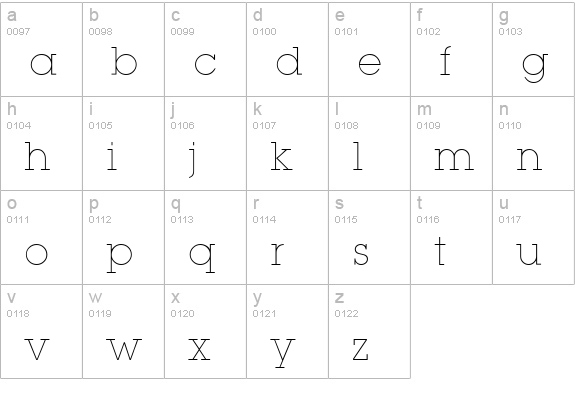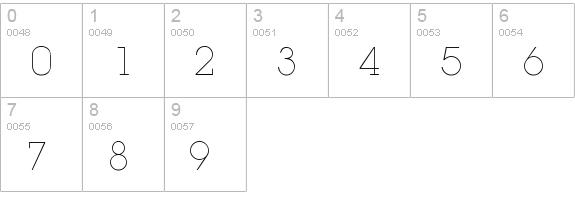
L850-Slab-Light-Regular is a refined, elegant variant in the L850 typeface family \xE2\x80\x94 well suited to elegant body text, refined sub-headings, and luxury branding.
L850 Slab Light Regular is a modern and sleek font that exudes sophistication and elegance. With its clean lines and sharp edges, this font is perfect for creating a professional and polished look in your design projects. The L850 Slab Light Regular font is versatile and can be used for various purposes such as branding, logos, headlines, and more. The best part is that this font is available for free download at FontsMarket.com. Now you can easily access this high-quality font without any cost and enhance your designs with a touch of class. Don't miss out on this fantastic opportunity to elevate your projects with the L850 Slab Light Regular font. Download it now and see the difference it can make in your designs!